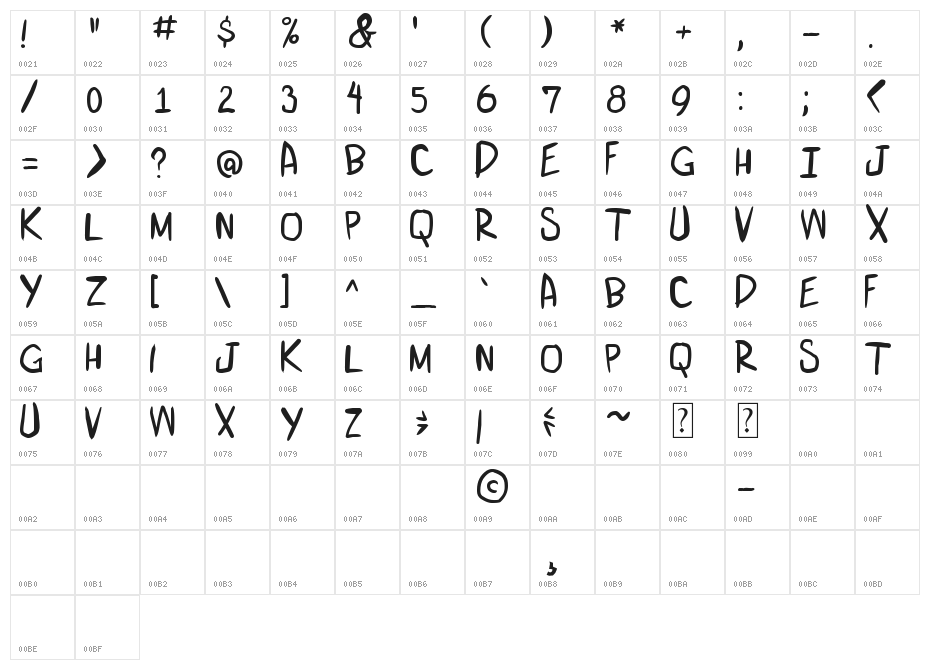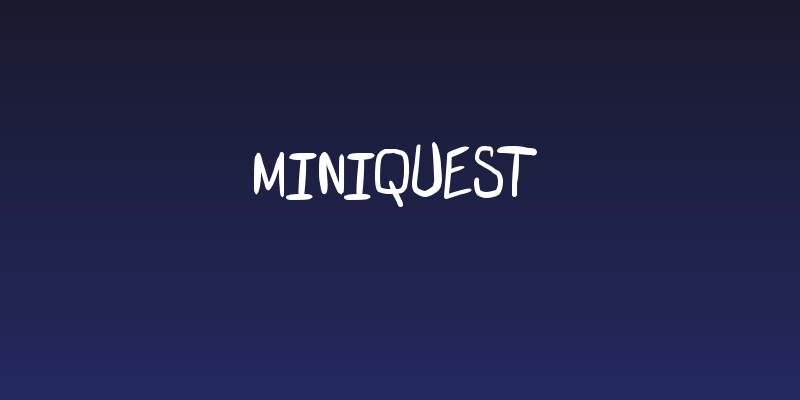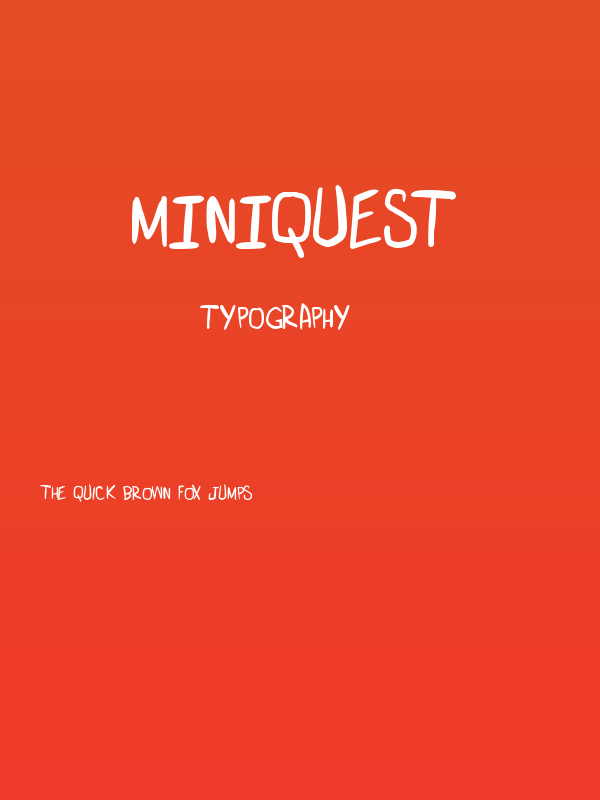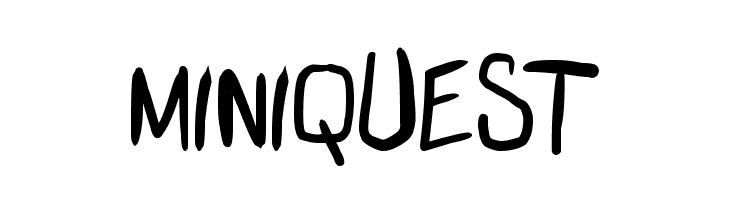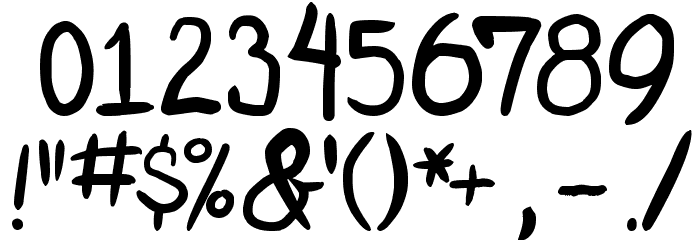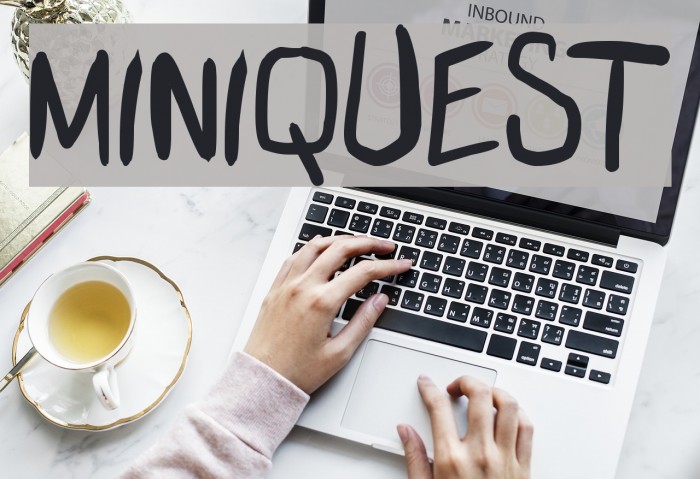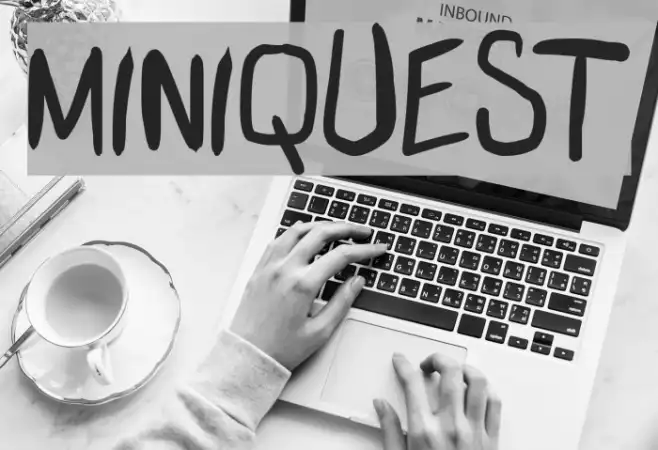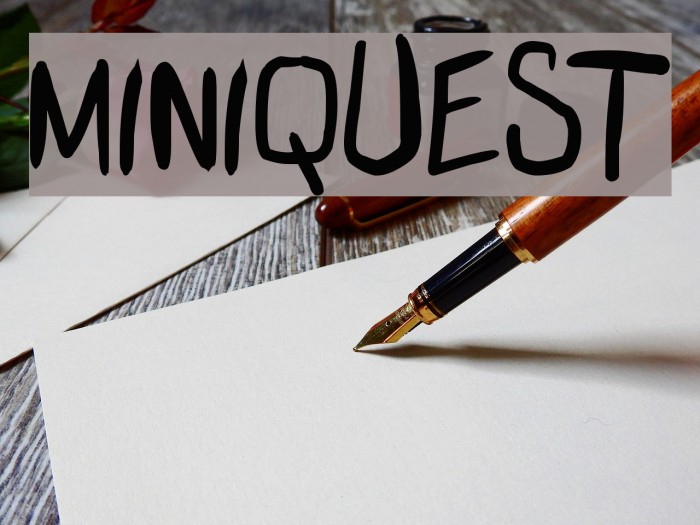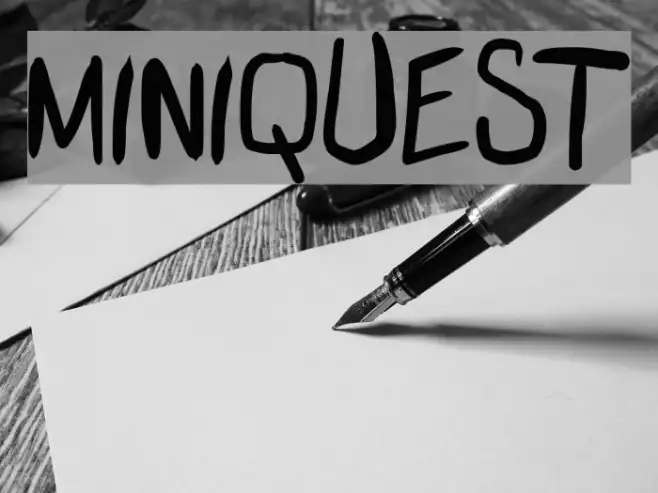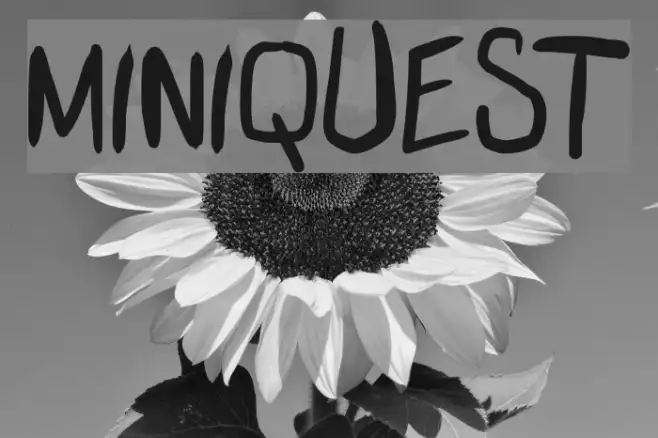
miniquest Font
miniquest Description
This font features a playful and informal handwritten style, characterized by its irregular and dynamic letterforms. The strokes are bold and slightly uneven, giving it a casual and approachable appearance. The uppercase and lowercase letters maintain a consistent style, with rounded edges and a slight tilt that adds to its whimsical nature. The numbers and special characters follow the same design principles, ensuring a cohesive look across all elements. This font is ideal for projects that require a personal touch or a fun, relaxed vibe.
| Proposed Projects | Ideal for greeting cards, children's books, casual invitations, and playful branding projects. |